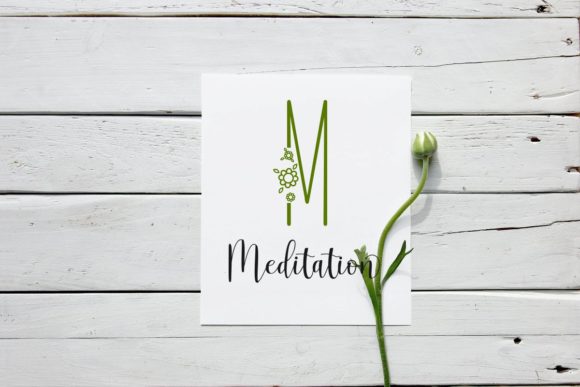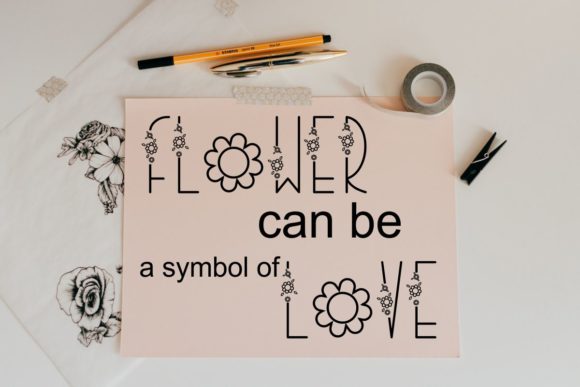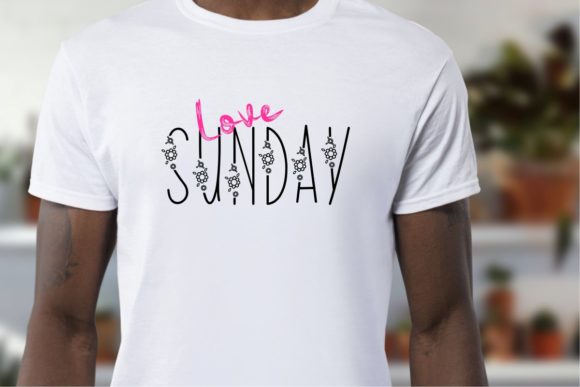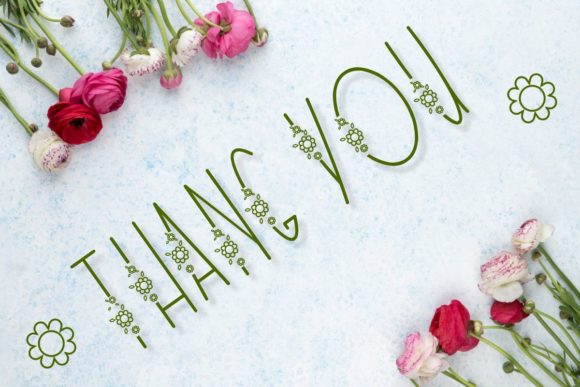
Discover the Charm of Buffalor Flower Font: A Sweet and Delicate Decorative Font
Are you a designer or crafter looking for a unique and captivating font to elevate your creative projects? Look no further than the Buffalor Flower Font, a sweet and delicate decorative font that is sure to steal your heart. This lovely font features beautiful flower ornaments that add a touch of elegance and sophistication to any design.
The Authentic Feel of Buffalor Flower Font
One of the standout features of the Buffalor Flower Font is its authentic feel. The font’s delicate flower ornaments and intricate details give it a hand-crafted look that is reminiscent of traditional wedding invitations and stationery. Whether you’re creating a romantic wedding invitation or a beautiful piece of stationary art, the Buffalor Flower Font is the perfect choice.
Endless Creative Possibilities with Buffalor Flower Font
The Buffalor Flower Font is incredibly versatile and can be used for a wide range of creative projects. Here are just a few ideas to get you started:
- Wedding Invitations: Create stunning wedding invitations that set the tone for a beautiful and romantic celebration.
- Stationary Art: Design gorgeous stationary art pieces that feature the font’s delicate flower ornaments.
- Social Media Posts: Add a touch of elegance to your social media posts with eye-catching graphics featuring the Buffalor Flower Font.
- Greeting Cards: Create cute and personalized greeting cards for special occasions like birthdays, anniversaries, and holidays.
Why Choose Buffalor Flower Font?
So why choose the Buffalor Flower Font over other decorative fonts? Here are just a few reasons:
- Unique and Eye-Catching: The font’s delicate flower ornaments make it stand out from other decorative fonts.
- Authentic Feel: The font’s hand-crafted look gives it an authentic feel that is perfect for traditional and vintage-inspired designs.
- Versatile: The font can be used for a wide range of creative projects, from wedding invitations to social media posts.
Tips for Using Buffalor Flower Font
Here are a few tips for using the Buffalor Flower Font in your creative projects:
- Pair with Other Fonts: Pair the Buffalor Flower Font with other fonts to create a unique and visually appealing design.
- Use for Headlines and Titles: Use the Buffalor Flower Font for headlines and titles to add a touch of elegance and sophistication.
- Don’t Overdo It: Don’t overdo it with the font’s delicate flower ornaments – sometimes less is more.